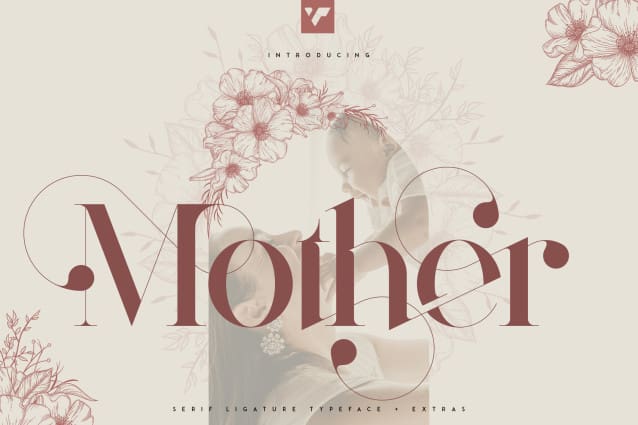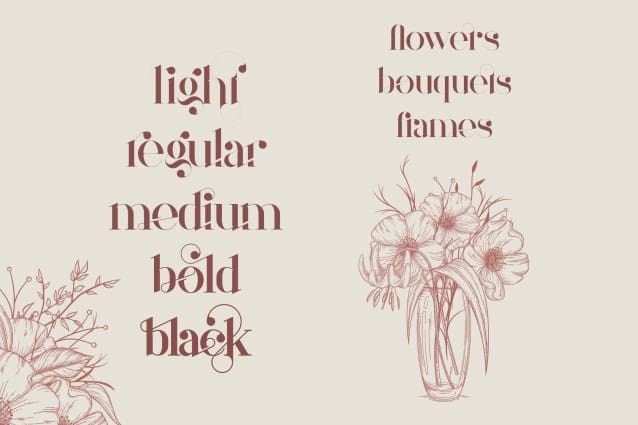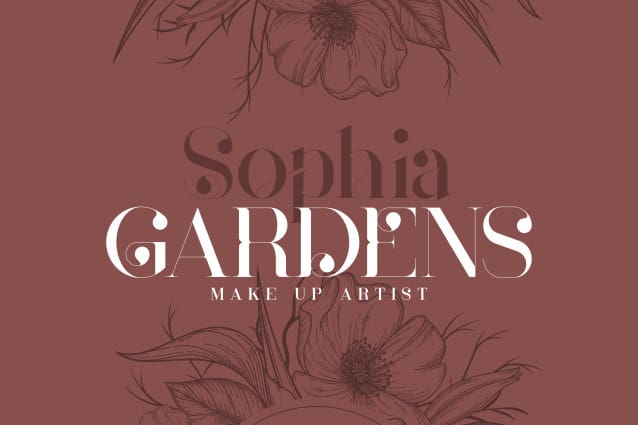
Mother Serif Ligature Font
Mother Serif Ligature Font is named after all the moms and children left behind. This typeface is feminine, fragile typeface with 5 fonts loaded with ligature glyphs, alternates and multilingual support to enchant your next project. Added and frames, bouquets and floral elements. Very versatile fonts that works great in large and small sizes.
Mother is perfect for branding projects, home-ware designs, product packaging, magazine headers – or simply as a stylish text overlay to any background image.